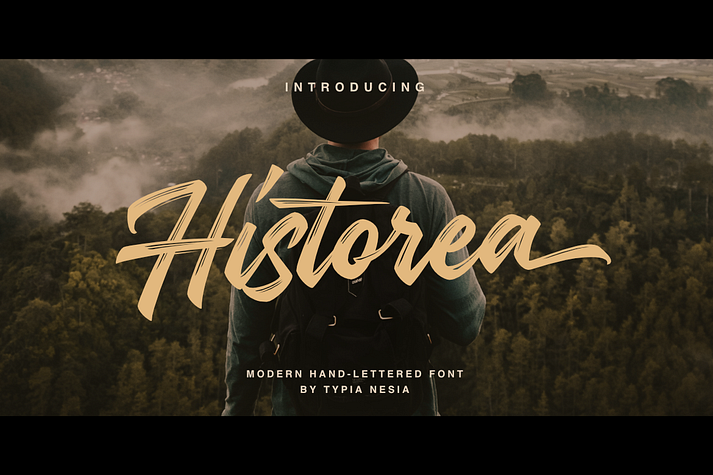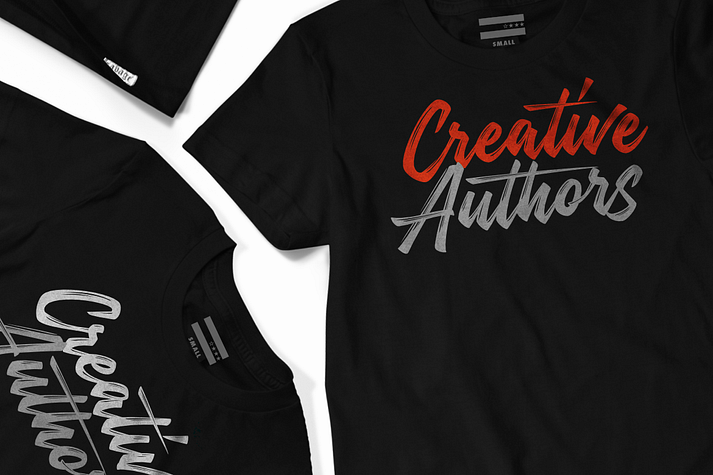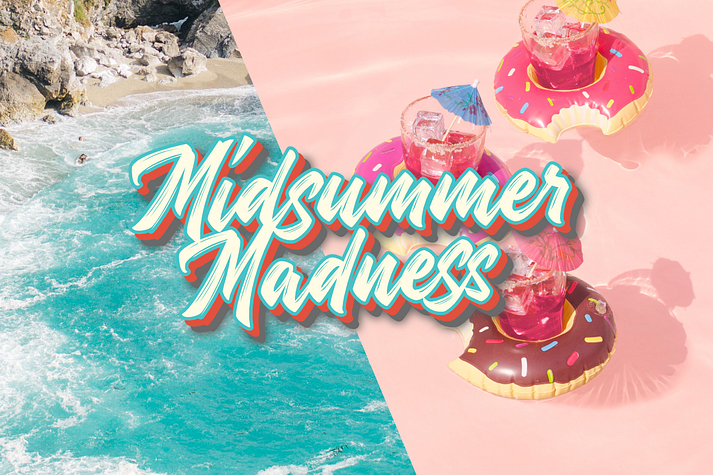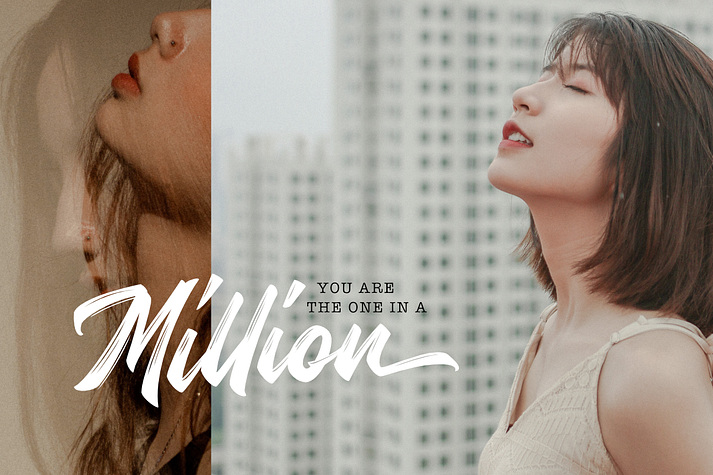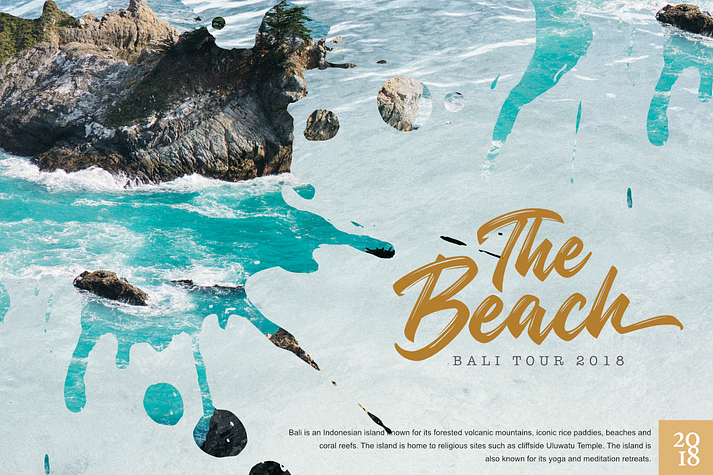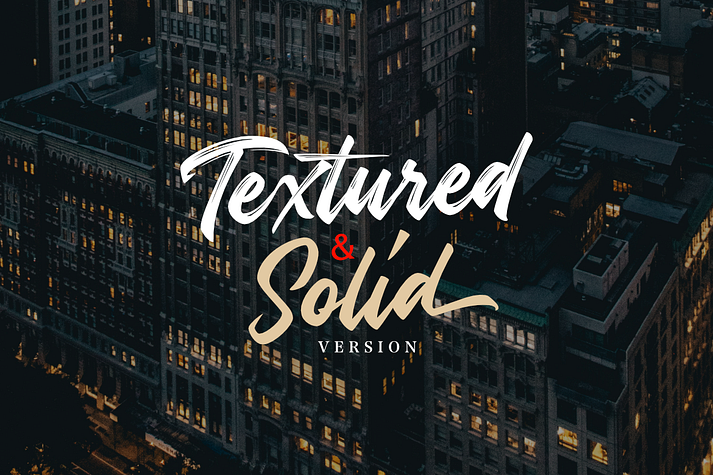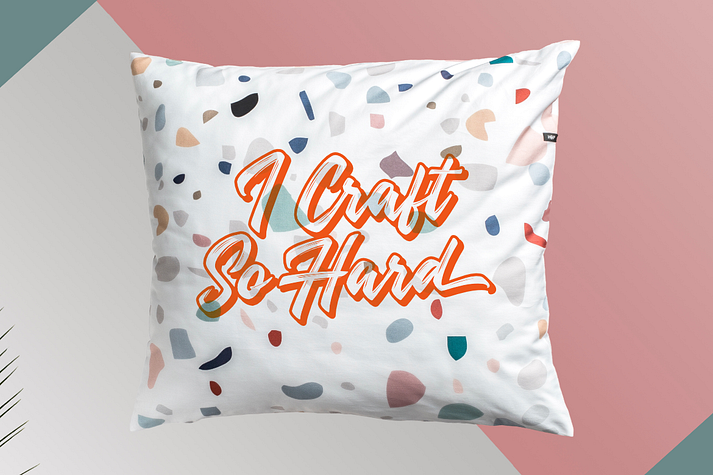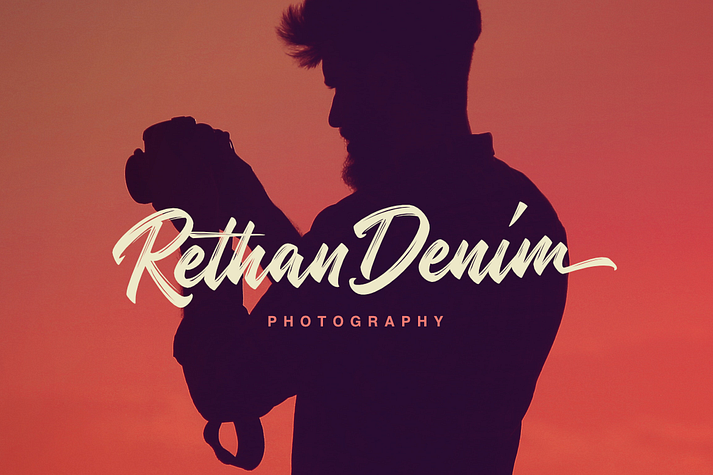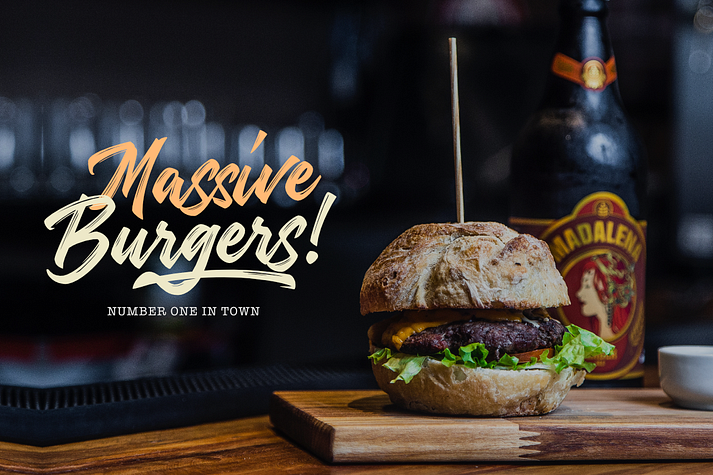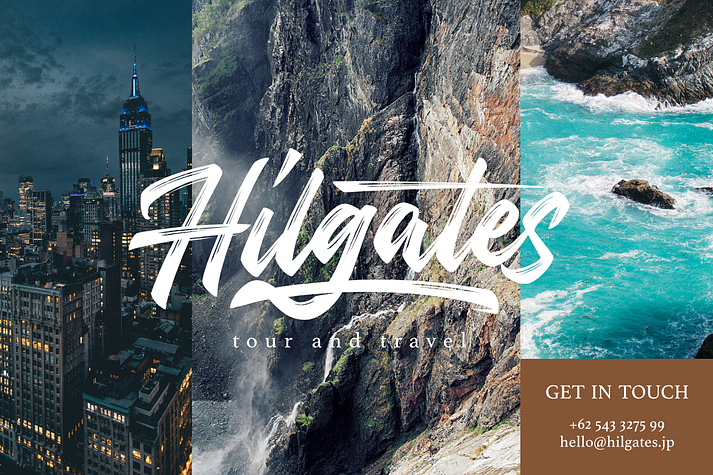
Historea
Historea is a font family. This typeface has two styles and was published by Typia Nesia.
Historea is a modern and natural hand lettered font. Work great for any design needs : logo, branding, modern advertising design, logos, poster quote, book / cover Title, editorial design, website / blog, card, custom mug, pillow, t-shirts, and any hand-lettered needs.
• Historea comes with 2 versions. Historea Reguler/textured and Historea Solid (.ttf + .otf), both fonts comes with upper and lowercase Standard Characters, Punctuation, Numerals. And other Glyphs variation of the OpenType features such as Standard Ligature, Stylistic Alternate, and Stylistic Set.
• Includes a range of multilingual characters.